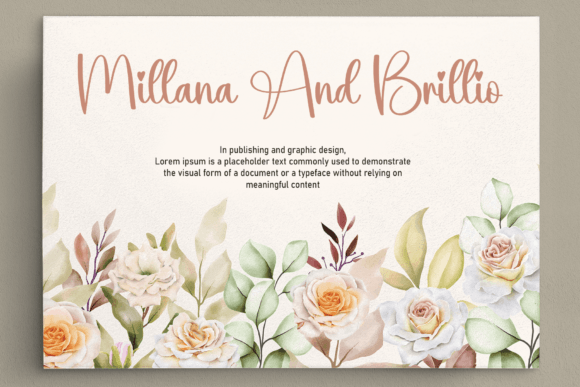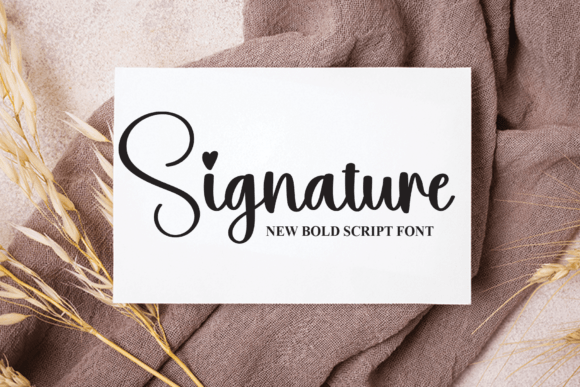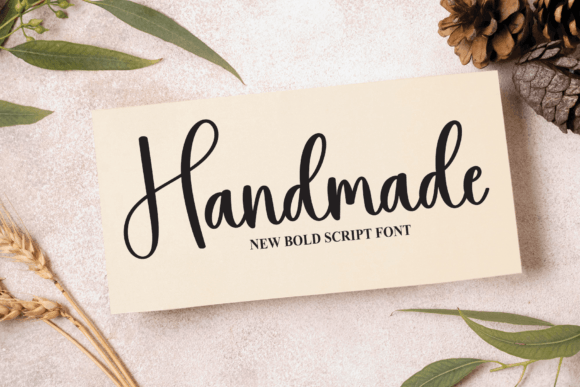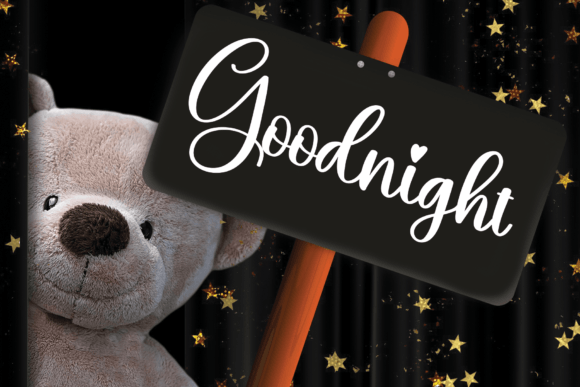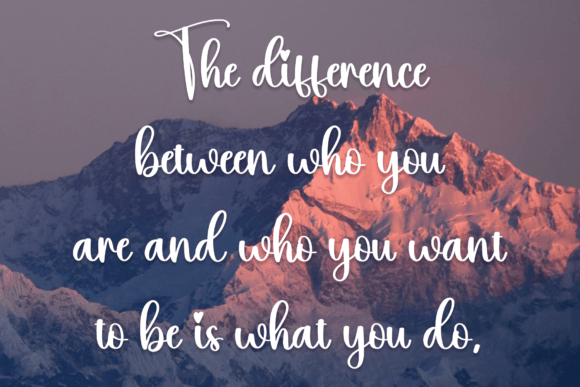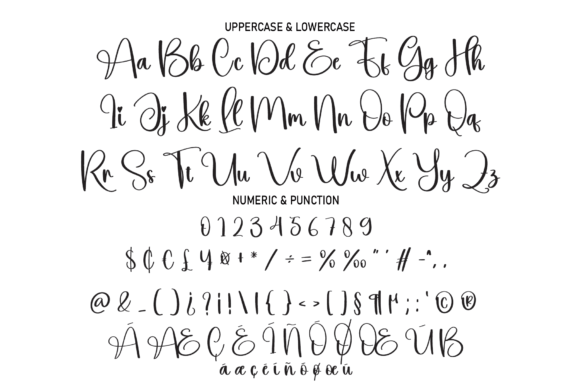
Bible Font: Elevate Your Design with Elegance and Sophistication
Are you a designer or crafter looking to add a touch of luxury and romance to your projects? Look no further than the Bible Font, a stunning calligraphy typeface that is sure to elevate your designs to the next level. This beautiful font is characterized by its flowing, cursive script and charming characters that dance along the baseline, creating a sense of movement and fluidity.
What is Bible Font?
Bible Font is a romantic and sweet calligraphy typeface that is perfect for adding a touch of elegance and sophistication to any design project. Its unique and distinctive style is reminiscent of traditional calligraphy, with characters that are intricately designed to create a sense of luxury and refinement. Whether you’re working on a wedding invitation, a branding project, or a craft project, Bible Font is sure to add a touch of class and sophistication.
Key Features of Bible Font
- Romantic and Sweet: Bible Font has a romantic and sweet feel to it, making it perfect for designs that require a touch of elegance and sophistication.
- Calligraphy Style: This font has a traditional calligraphy style, with characters that are intricately designed to create a sense of luxury and refinement.
- Characters that Dance: One of the unique features of Bible Font is its characters that dance along the baseline, creating a sense of movement and fluidity.
- Luxury Spark: Bible Font is sure to add a luxury spark to any design project, making it perfect for high-end branding, wedding invitations, and craft projects.
Uses of Bible Font
Bible Font is a versatile typeface that can be used in a variety of design projects, including:
- Wedding Invitations: Add a touch of elegance and sophistication to your wedding invitations with Bible Font.
- Branding Projects: Use Bible Font to create a luxurious and refined brand identity for your business.
- Craft Projects: Bible Font is perfect for craft projects, such as card making, scrapbooking, and DIY gifts.
- Stationery: Use Bible Font to create beautiful and elegant stationery, including letterheads, envelopes, and notecards.
Tips for Using Bible Font
Here are some tips for using Bible Font in your design projects:
- Pair with Simple Backgrounds: Bible Font looks best on simple backgrounds, so try pairing it with a plain or textured background to let the font shine.
- Experiment with Colors: Bible Font looks great in a variety of colors, so don’t be afraid to experiment with different hues and shades.
- Use for Headlines and Titles: Bible Font is perfect for headlines and titles, so try using it to add a touch of elegance and sophistication to your designs.
- Mix with Other Fonts: Bible Font can be paired with other fonts to create a unique and interesting design, so try experimenting with different font combinations.
In conclusion, Bible Font is a beautiful and elegant calligraphy typeface that is perfect for adding a touch of luxury and sophistication to any design project. Its unique and distinctive style, characterized by characters that dance along the baseline, makes it a standout font that is sure to elevate your designs to the next level. Whether you’re a designer or crafter, Bible Font is a must-have font that is sure to become a favorite in your collection.